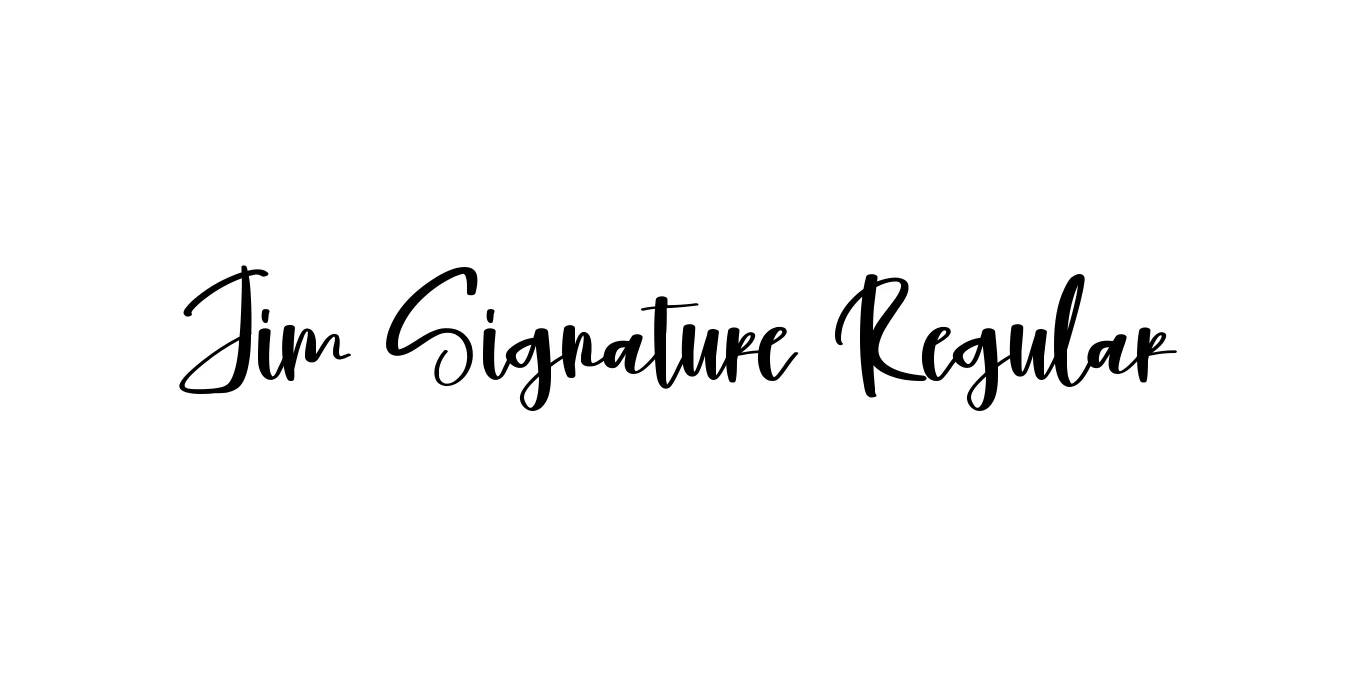
Jim Signature Regular
Designed by Jim
Jim Signature Regular is a sophisticated digital typeface that embodies the fluidity and intimacy of authentic human handwriting. Originating from the trend of bespoke personal branding, this typeface was developed to translate the nuances of ink-on-paper signatures into a versatile digital format. It serves as a bridge between high-end executive stationery and modern digital accessibility, ensuring that personal marks remain consistent across various media, from physical business cards to digital invoices.
From a technical standpoint, Jim Signature Regular features a moderate x-height that maintains legibility even at smaller point sizes, a rare feat for highly cursive scripts. The stroke weight is characterized by subtle modulation, mimicking the natural pressure variation of a medium-point pen. Its letterforms are defined by sweeping ascenders and rhythmic descenders that create a balanced visual cadence. The font utilizes tight but intentional kerning pairs to ensure the connections between characters appear seamless and organic, avoiding the mechanical repetition often found in standard script fonts.
Jim Signature Regular Best Uses
Perfect for creating professional signatures for CEOs and creative professionals.
Ideal for elegant watermarks on high-resolution portrait photography.
Excellent for wedding invitations, personal note cards, and luxury menus.
Adds a human, authentic touch to influencer graphics and social media quotes.